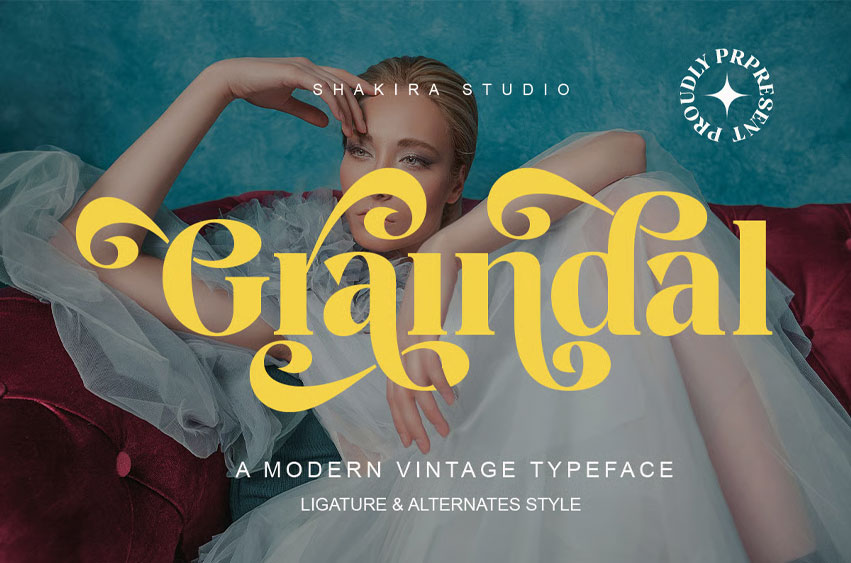
Graindal Font is a bold modern vintage typeface that blends elegance with ornamental retro aesthetics.
It features stylish curves, dramatic swashes, and alternate glyphs that command attention in editorial layouts, logo designs, and premium product packaging. Every letterform flows with flair, making Graindal a striking choice for branding with nostalgic glamour and confident personality.
Achieve timeless charm with a touch of drama.
• Stylish alternates & swashes
• Editorial magazine titles
• Fashion & elegance branding
• Feminine product packaging
• Vintage poster art
• Perfume or beauty logo
• Classy retro signage
Graindal exudes high-fashion charisma with a decorative soul.